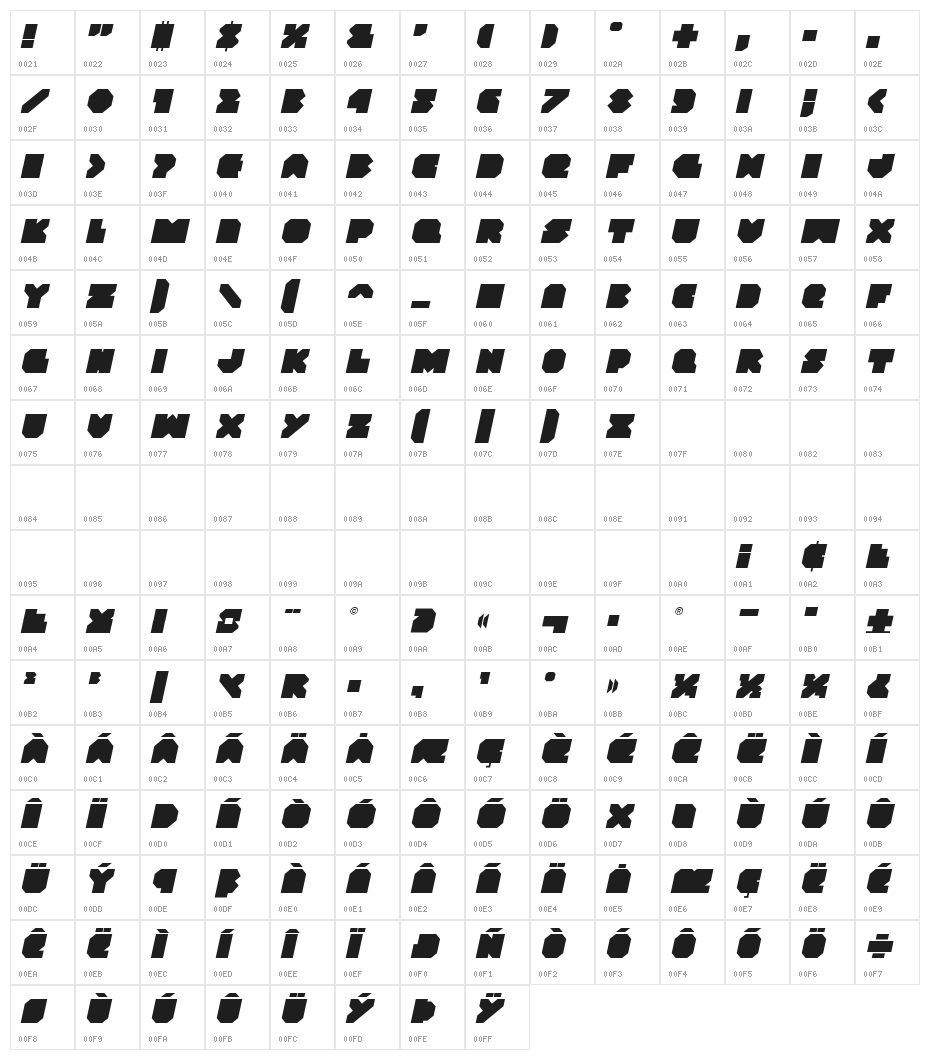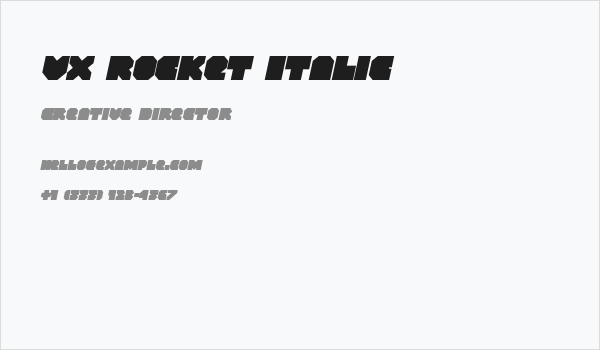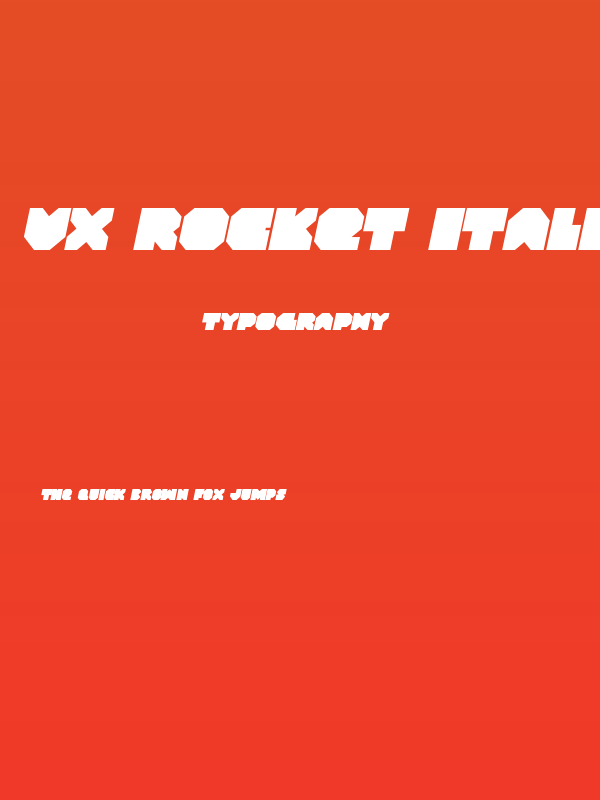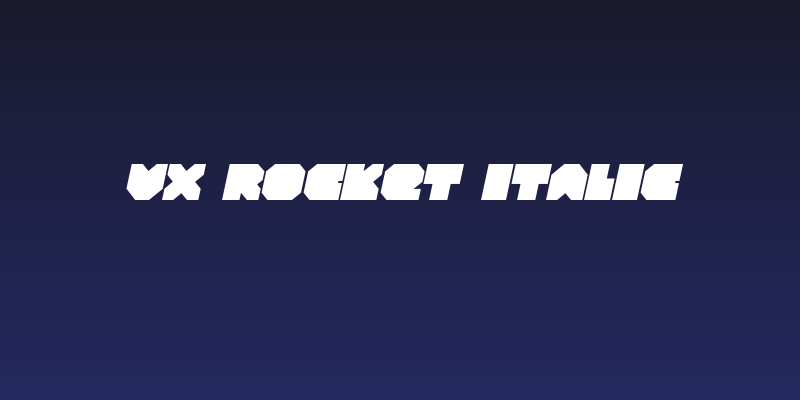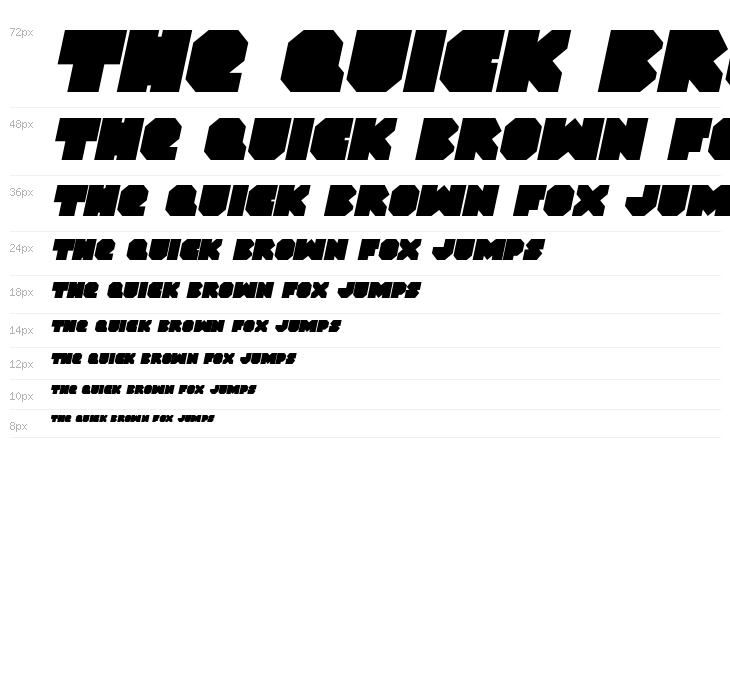
VX Rocket Italic Font
VX Rocket Italic Description
This font features a bold, geometric design with sharp angles and a futuristic aesthetic. The characters are constructed with thick, block-like forms that convey a sense of strength and modernity. The italic slant adds a dynamic and forward-moving feel, enhancing its energetic appearance. Each letter is distinct, with unique cuts and edges that create a visually striking effect. The numbers and special characters maintain the same bold and angular style, ensuring consistency across all elements. This font is ideal for projects that require a strong, impactful presence.
| Proposed Projects | Ideal for sci-fi themed designs, video game titles, technology branding, and dynamic posters. |